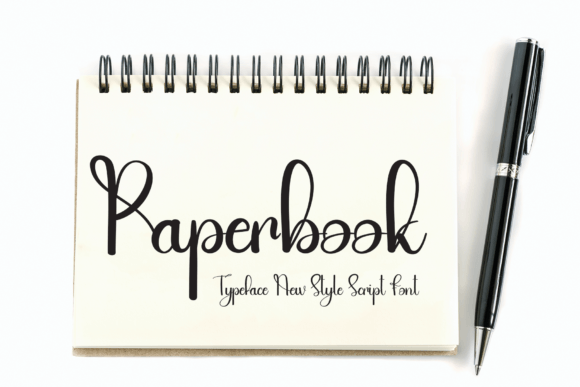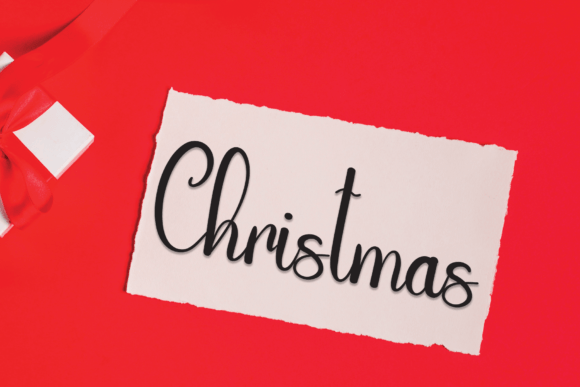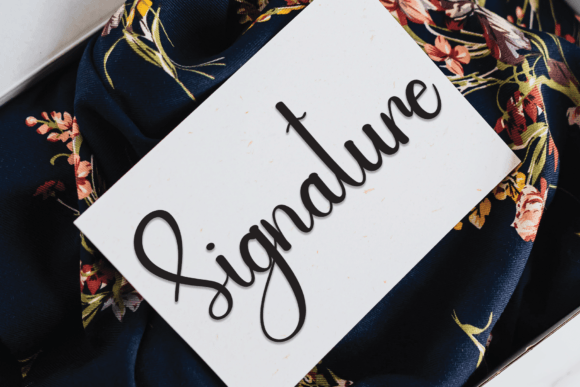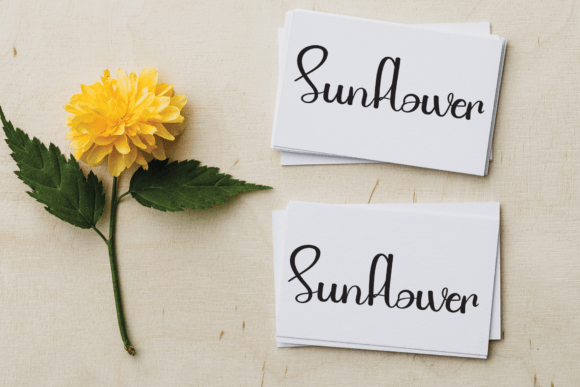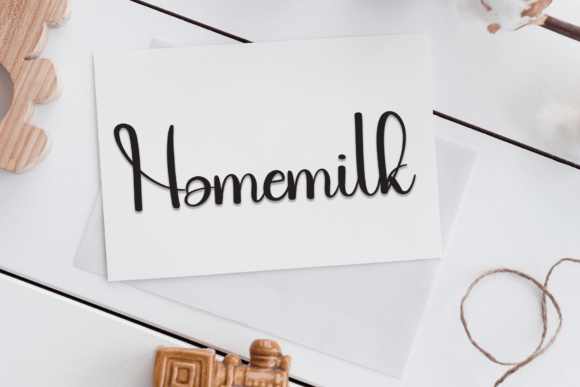
About Paperbook Font
A Handwritten Font with Heart
The Paperbook Font download delivers a sweet and smooth handwritten style that’s perfect for adding a personal touch to any project. With its playful curves and romantic vibe, it’s an ideal typeface for heartfelt design work.
Designed for Special Moments
Whether you’re creating a wedding invitation or a personal note, Paperbook brings a lovely charm to your typography. It works beautifully on:
Wedding invitations
Greeting cards
Scrapbook pages
Event stationery
Romantic quotes
Personalized gifts
This font makes every design feel warm and handcrafted.
Easy to Use and Versatile
Why Choose Paperbook?
Because it blends elegance with personality. The Paperbook Font download gives your designs a handwritten feel that’s stylish, legible, and memorable.